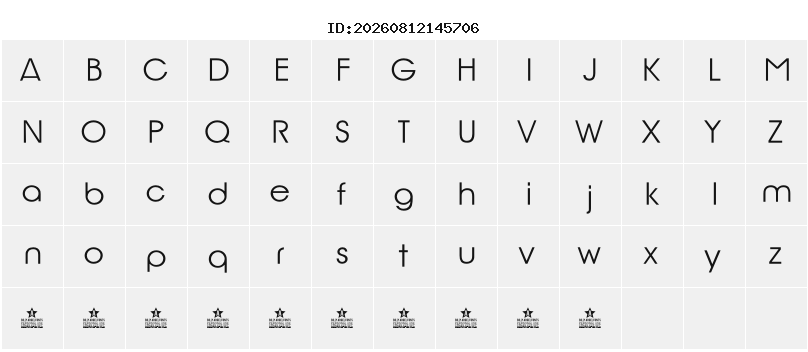
Rio Glamour personal use Preview
• Designer: BILLY ARGEL
About Rio Glamour personal use.otf
Rio Glamour personal use.otf is a modern, elegant sans-serif font designed for ultimate readability and visual harmony. Perfect for branding, headlines, web design, and print materials.